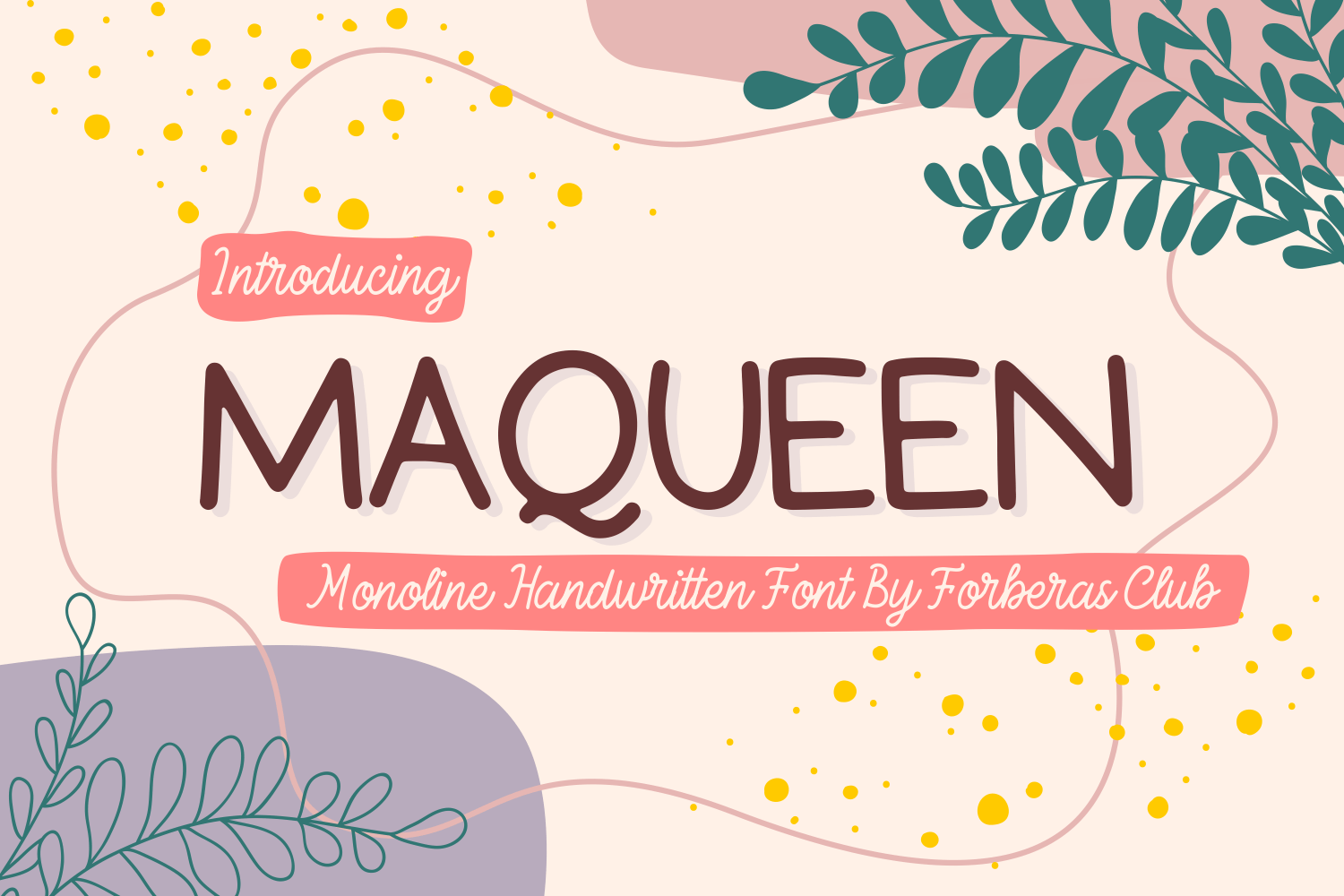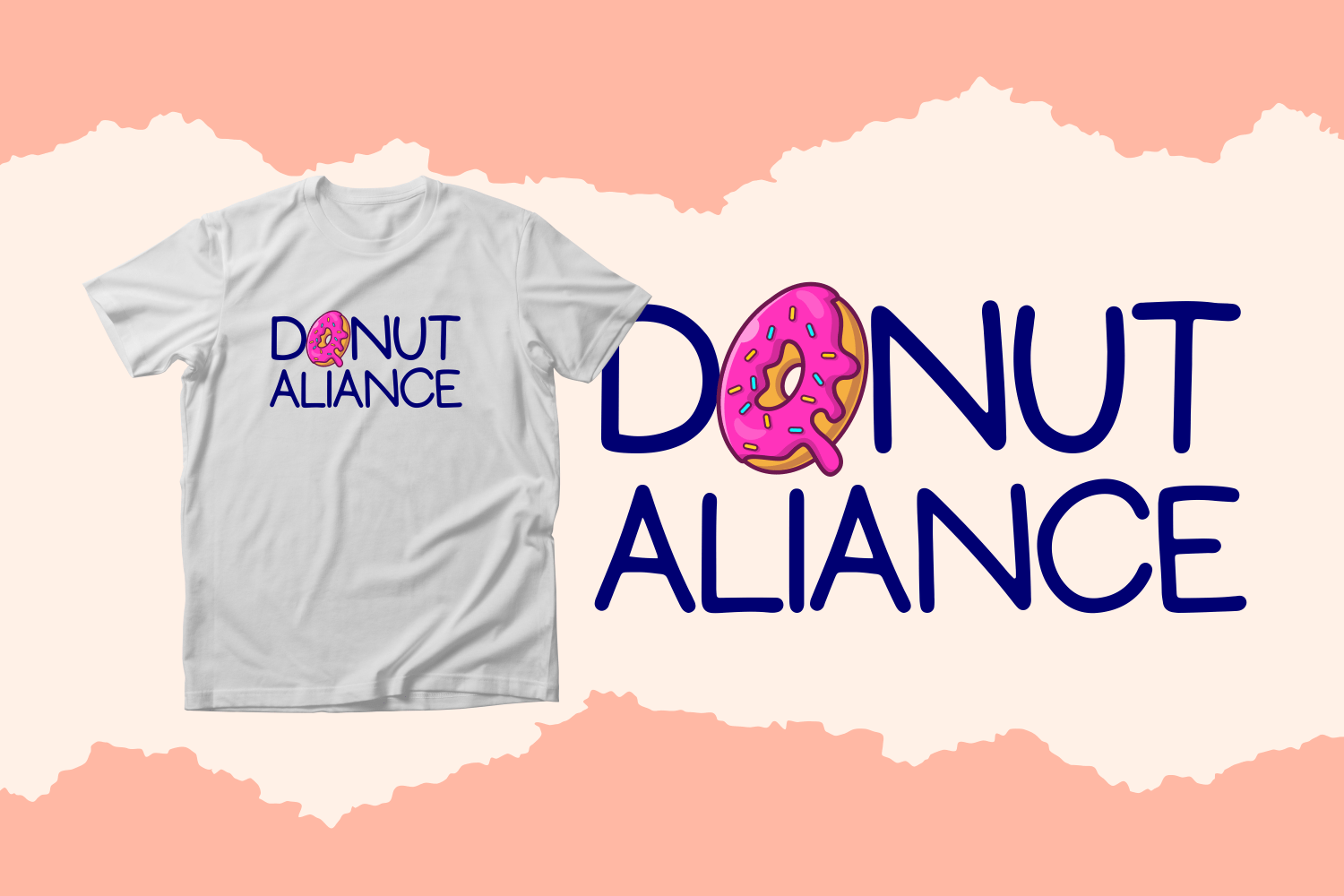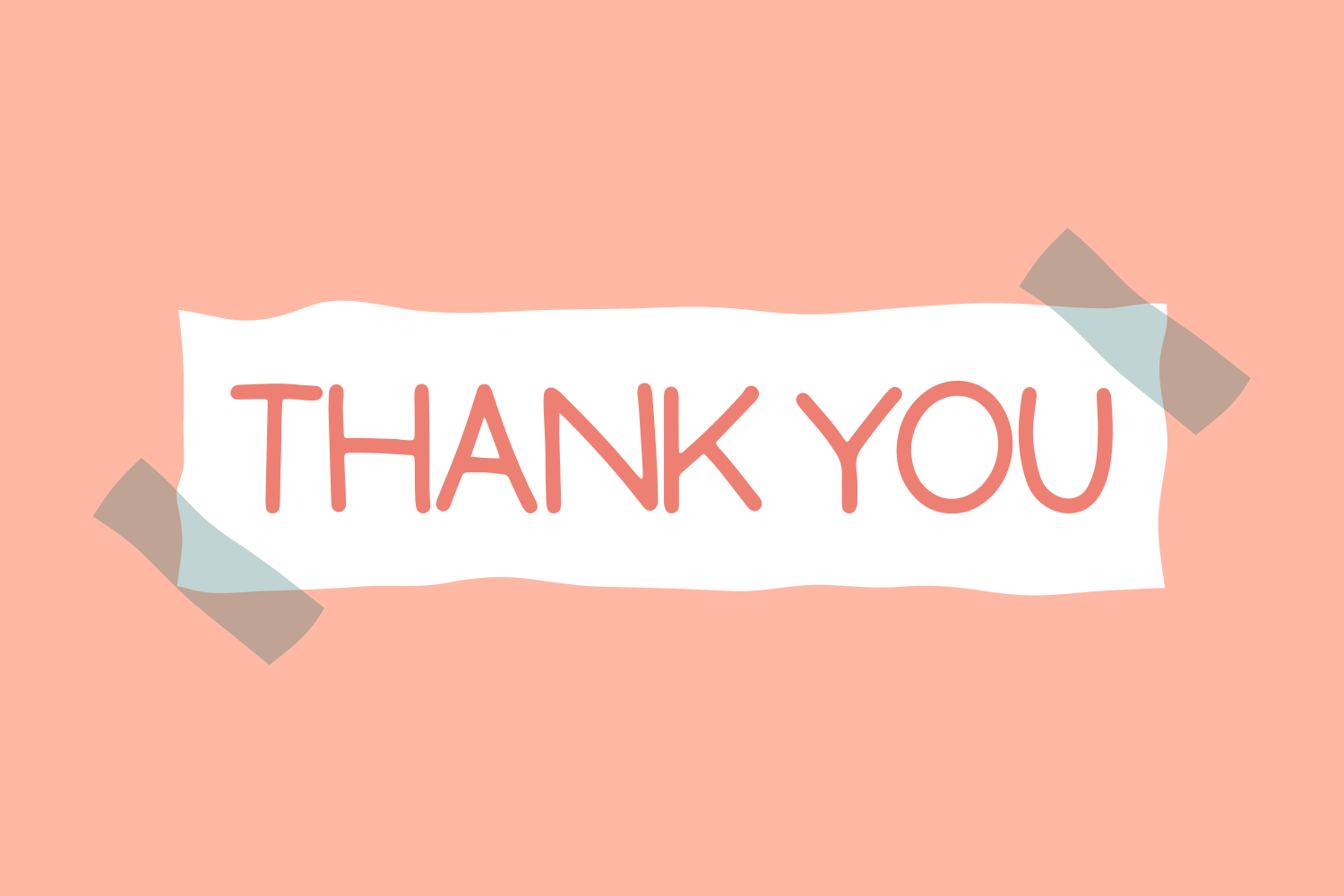
Maqueen Font
Maqueen Display Font is a sweet, whimsical and flowing script font. Featuring characters that dance along the baseline, this font will add a luxury spark to any design project that you wish to create!
Forberas Foundry